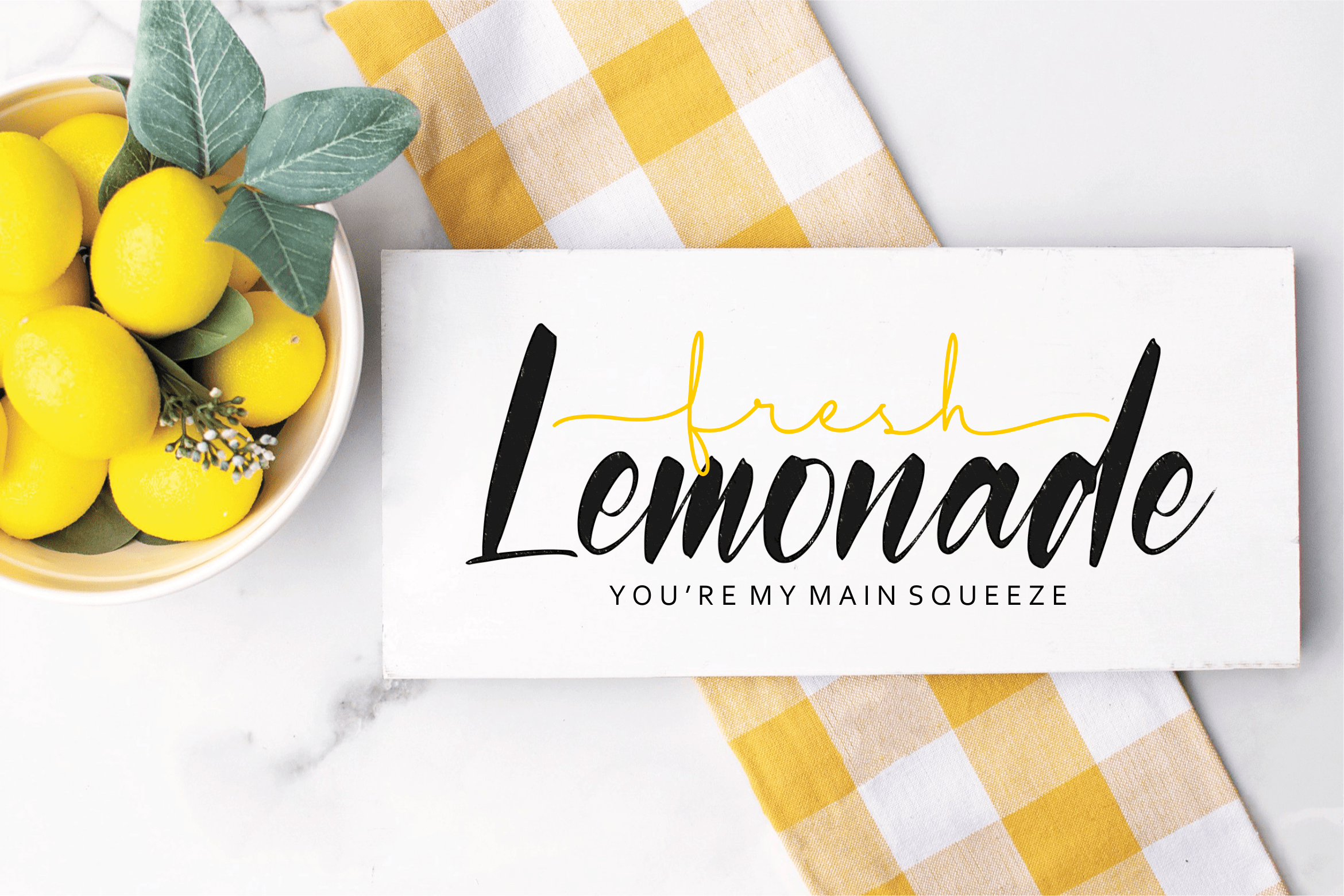
Lemonice Font
Lemonice Script Font
This is a Modern Handwritten Font. Lemonice is perfect for product packaging, branding project, megazine, social media, wedding, or just used to express words above the background. This font includes OTF & TTF, Lemonice also multilingual support.
qwrtype